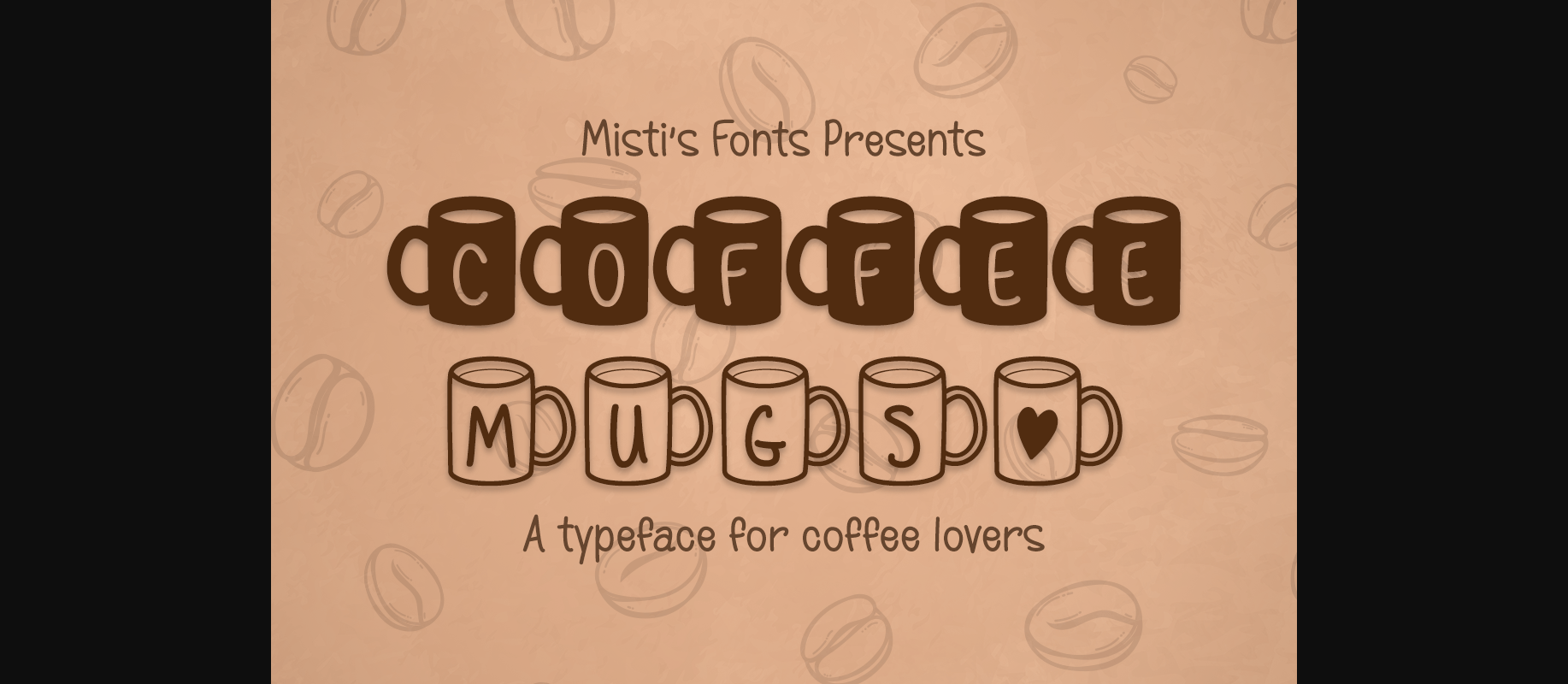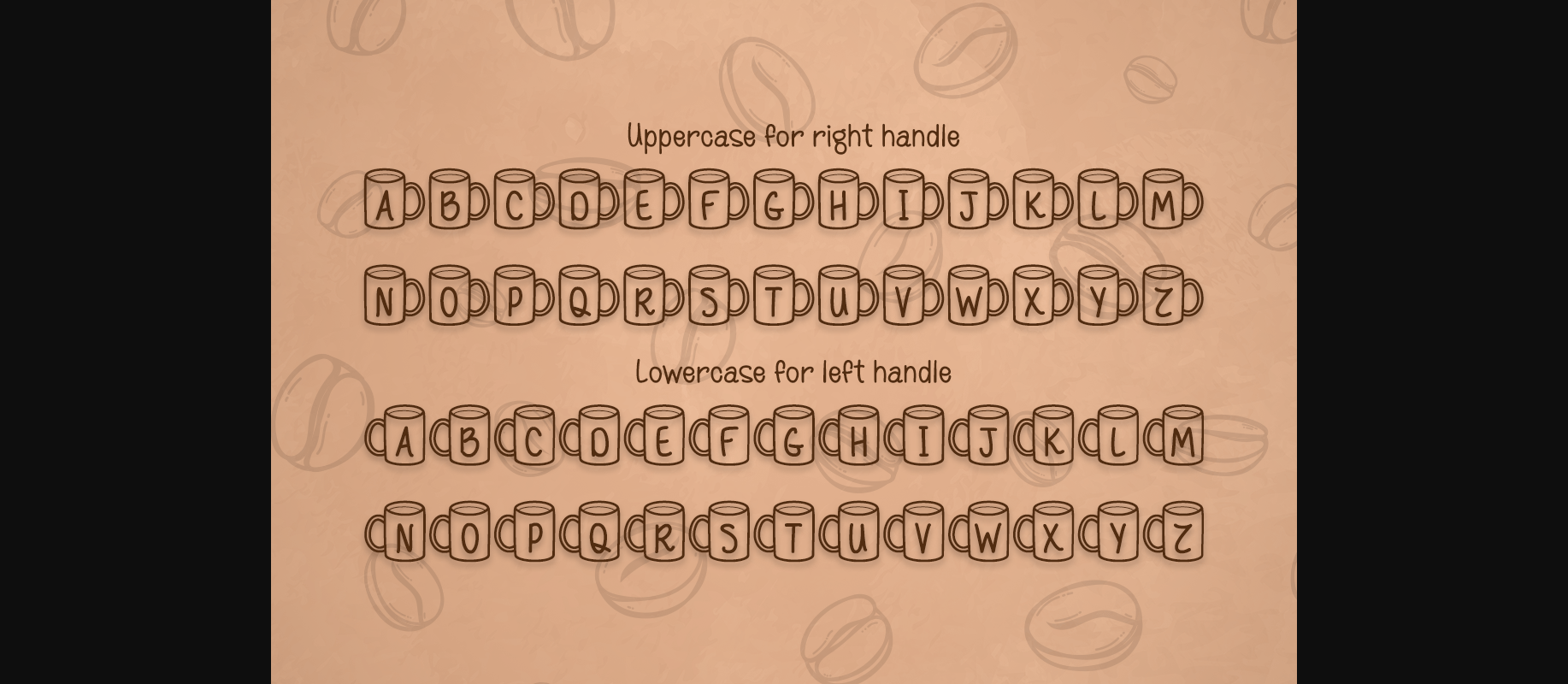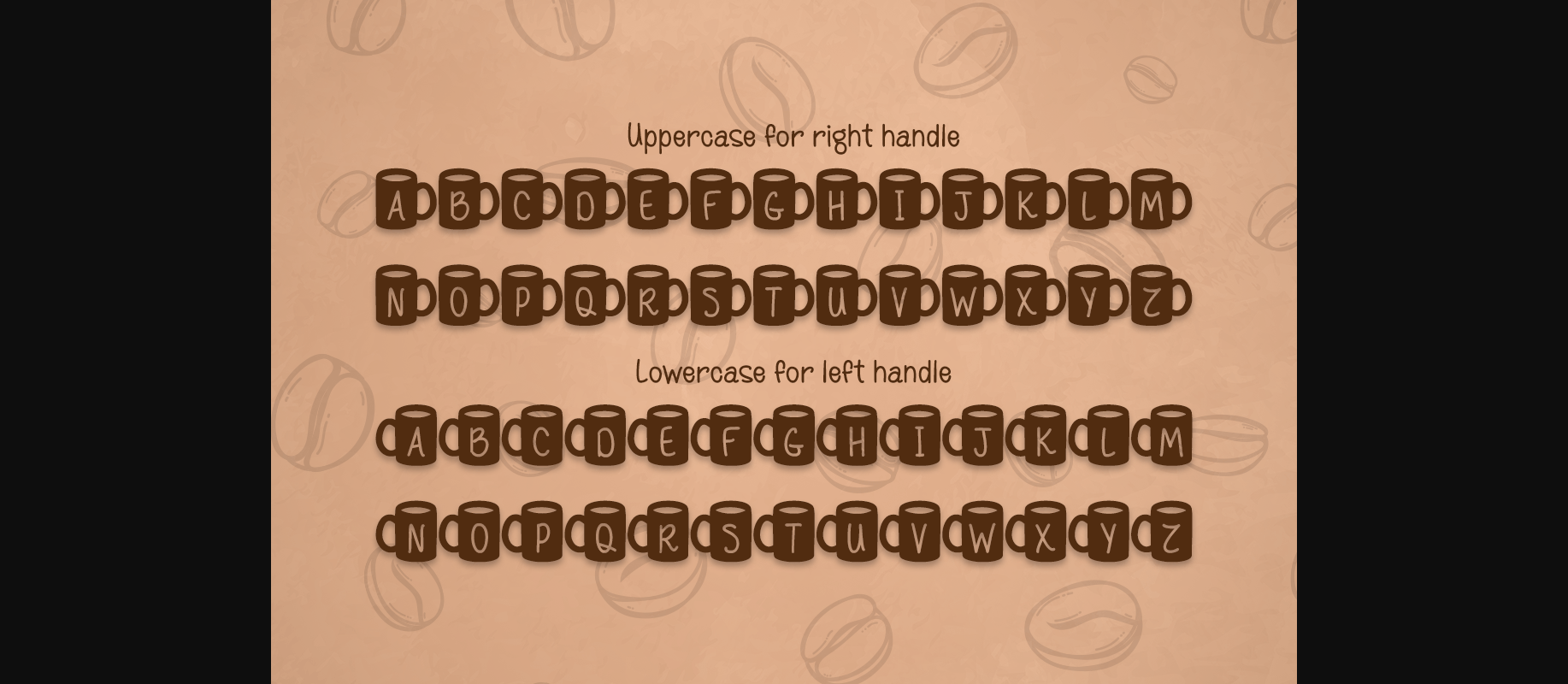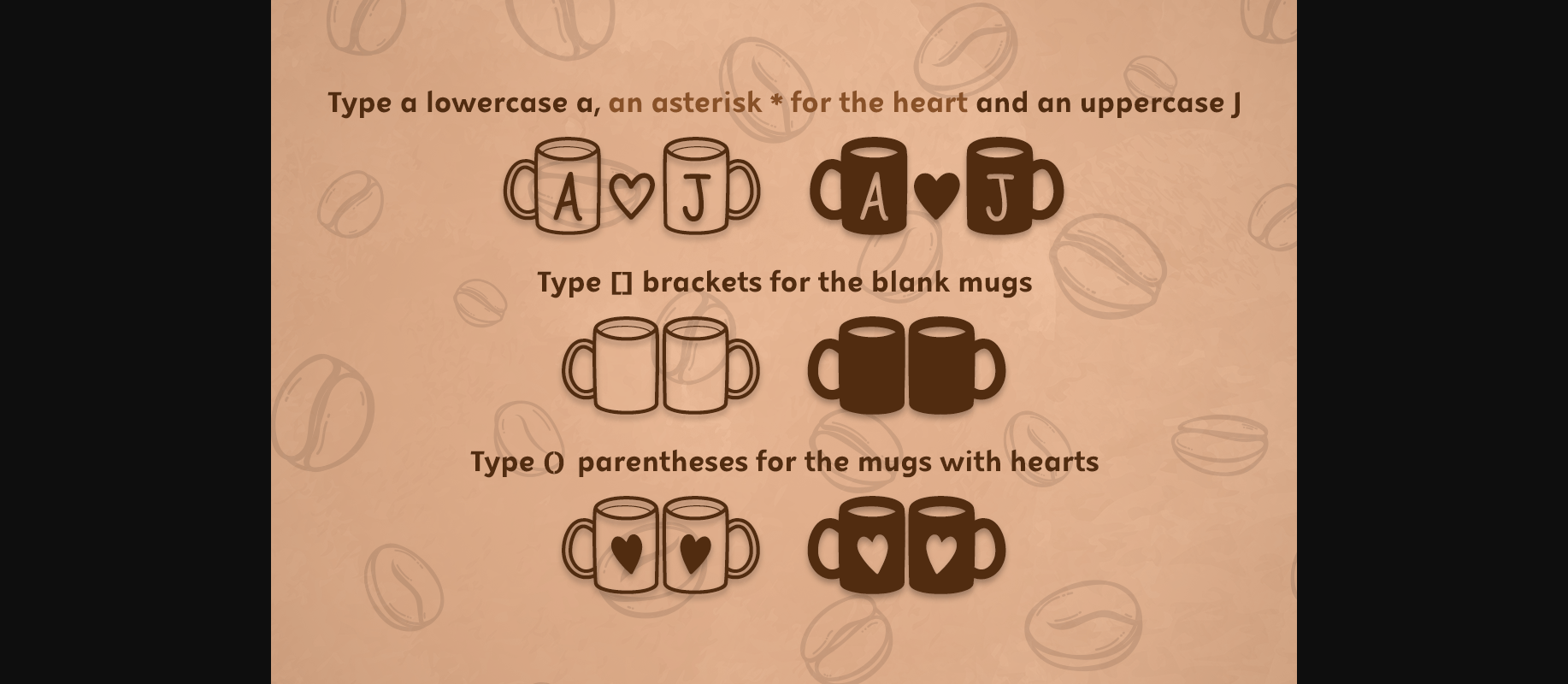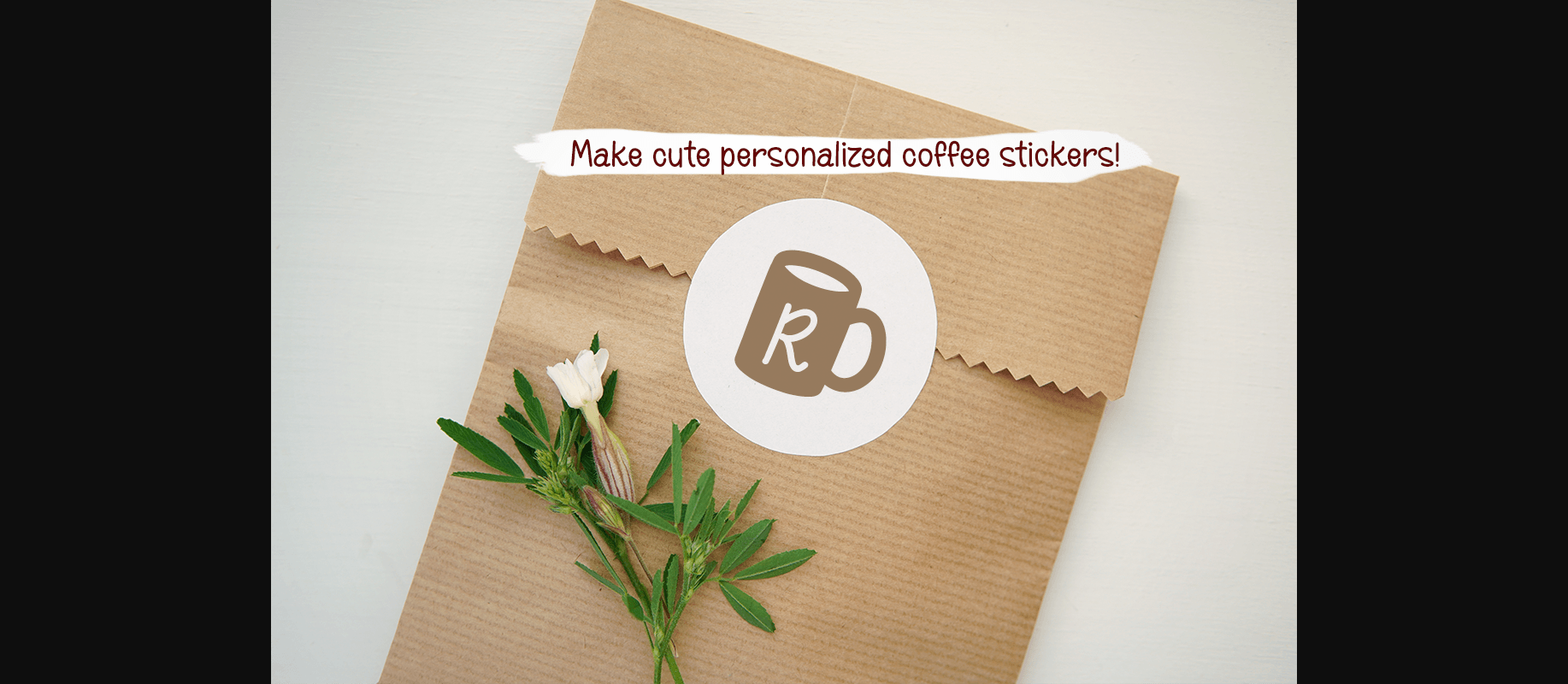
Coffee Mugs Font
About Coffee Mugs Font
Coffee Mugs is a fun and whimsical decorative typeface. It is perfect for creating personalized projects for the coffee lovers in your life. You can use it for initials and the heart symbol included makes it perfect for couples’ initials and for general Valentine’s Day projects. You could also imagine the coffee mugs as hot chocolate for Winter and Christmas projects.